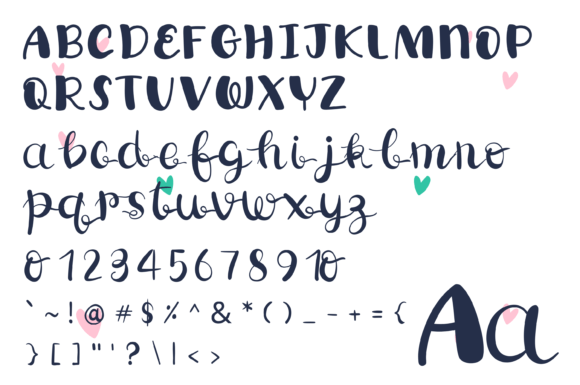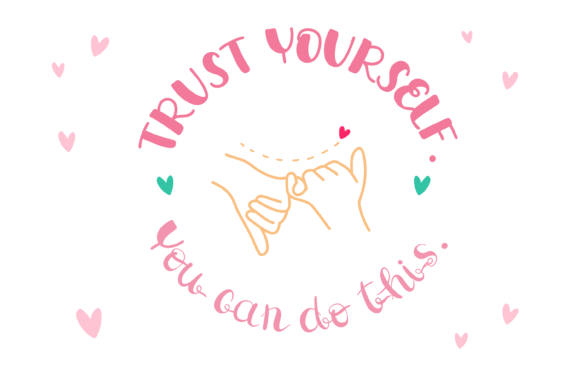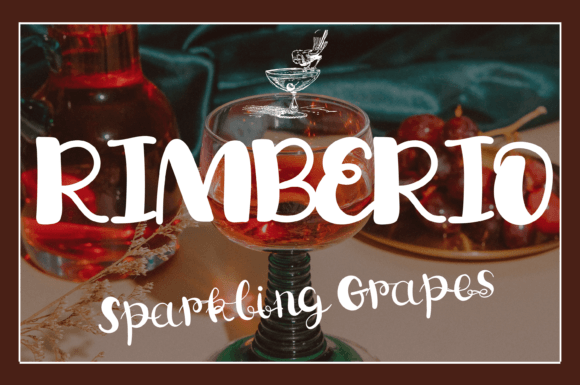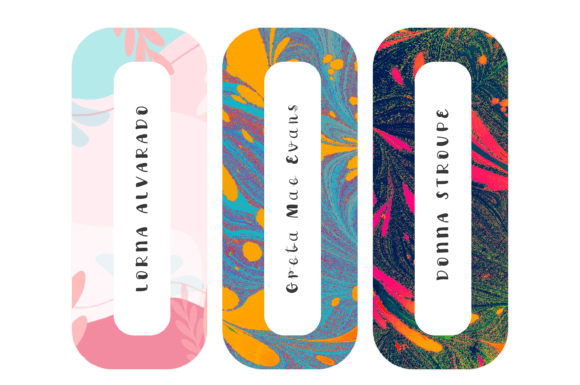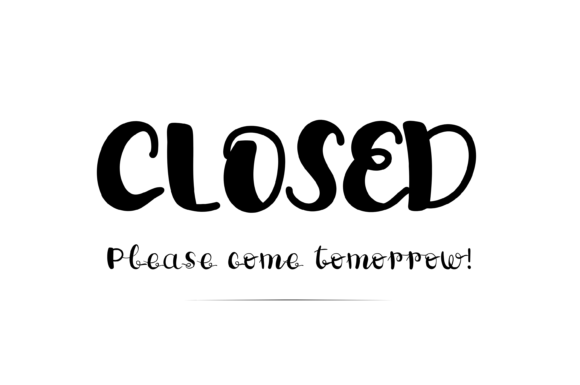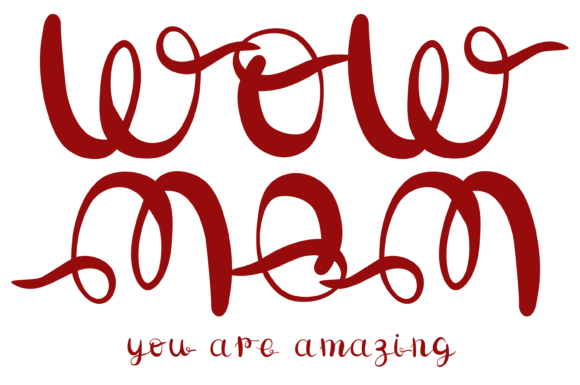
Discover the Magic of Believe Yourself Font: Elevate Your Designs with a Whimsical Touch
Are you tired of using the same old fonts in your designs? Look no further! Introducing the Believe Yourself font, a whimsical and clean handwritten font that’s sure to add a touch of magic to your creative projects. With its unique and elegant style, this font is perfect for designers and crafters looking to make their work stand out from the crowd.
What Makes Believe Yourself Font So Special?
Believe Yourself is a versatile font that can easily be matched to an incredibly large set of projects. Whether you’re working on a logo, branding, packaging, or social media graphics, this font is sure to complement your design. Its clean and handwritten style makes it perfect for a wide range of applications, from modern and trendy to vintage and rustic.
One of the standout features of Believe Yourself font is its whimsical touch. The font’s unique and playful style adds a touch of personality to any design, making it perfect for projects that require a bit of flair. Whether you’re designing for a children’s brand, a lifestyle blog, or a creative agency, this font is sure to bring a smile to your audience’s face.
Why Designers and Crafters Love Believe Yourself Font
So, what makes Believe Yourself font a favorite among designers and crafters? Here are just a few reasons:
- Unique Style: Believe Yourself font has a one-of-a-kind style that’s sure to make your designs stand out from the crowd.
- Versatility: This font can be used in a wide range of projects, from digital designs to print materials.
- Elegant and Whimsical: The font’s clean and handwritten style makes it perfect for projects that require a touch of elegance and whimsy.
- Easy to Read: Despite its unique style, Believe Yourself font is easy to read and understand, making it perfect for body text and headlines.
How to Use Believe Yourself Font in Your Designs
- Pair it with Bold Fonts: Pair Believe Yourself font with bold fonts for a striking contrast that adds visual interest to your design.
- Use it for Headlines: Use Believe Yourself font for headlines and titles to add a touch of whimsy and personality to your design.
- Add it to Your Branding: Use Believe Yourself font in your branding materials, such as logos and packaging, to add a unique touch to your brand identity.